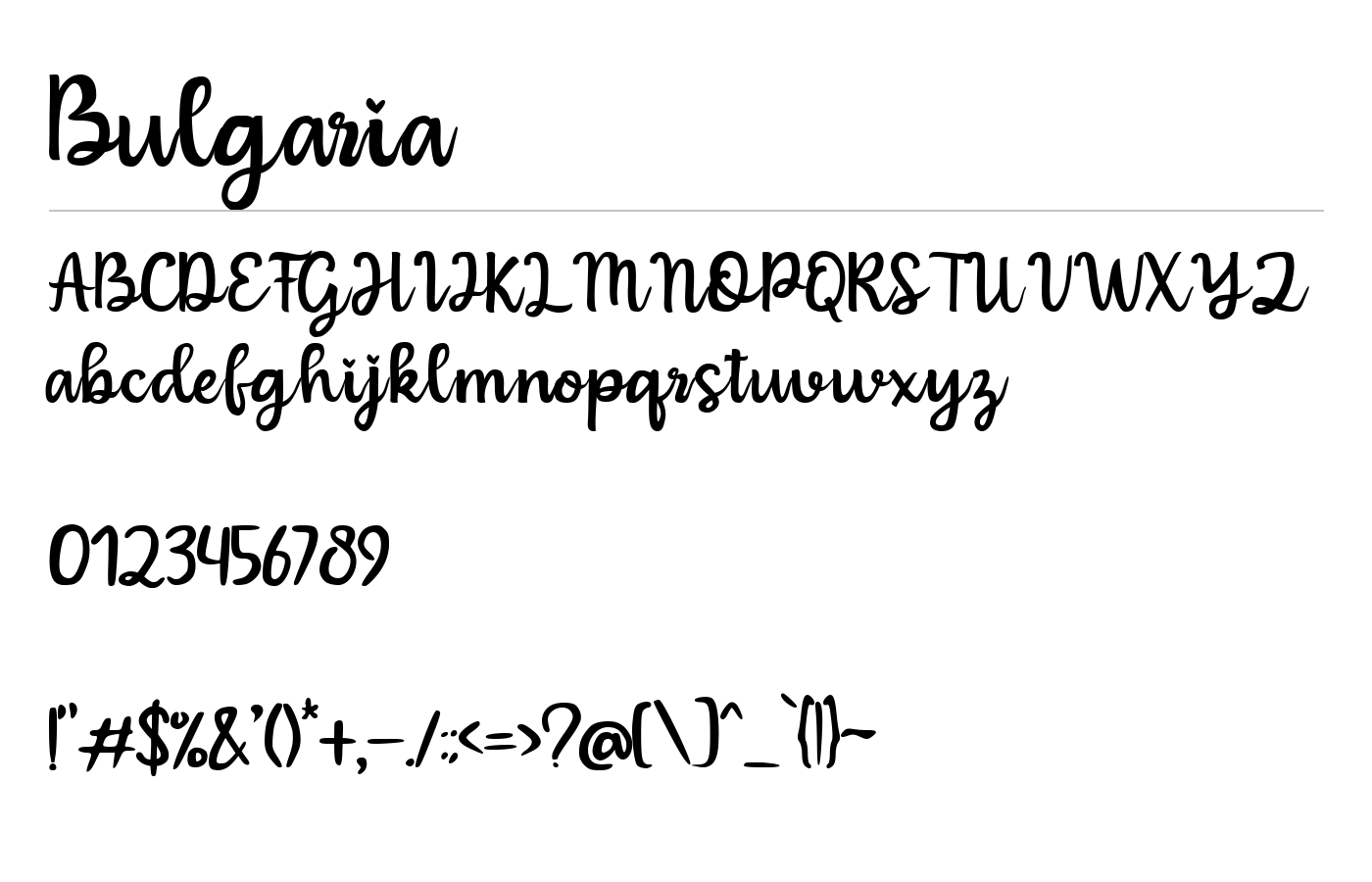
Bulgaria Font is a playful and charming script typeface that features smooth, rounded strokes with a casual handwritten feel. Its moderate weight and slightly condensed letterforms, combined with unique, whimsical details like the heart-shaped dot on the "i," make it ideal for designs seeking a friendly, personal touch. This font works well for branding, invitations, and creative projects that want to evoke warmth and approachability.
Bulgaria Font
About Bulgaria Font
| Font family | Bulgaria Font |
| Designer | Stringlabs. 2020 |